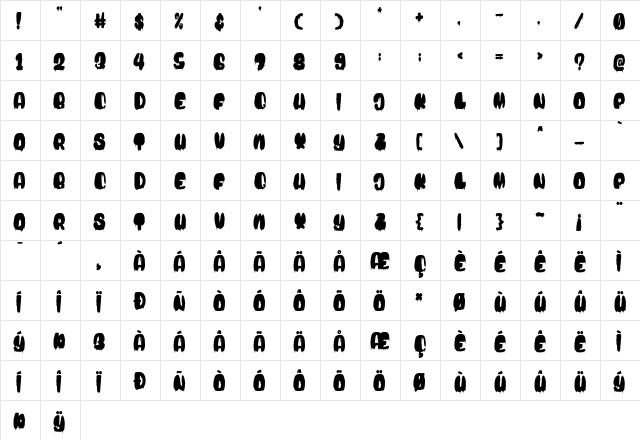
Blood Bold Driped Regular
Design Context for Blood Bold Driped Typeface
Blood Bold Driped carries an unsettling edge — its distorted letterforms are built to unsettle, perfectly suited to horror, Halloween, and dark creative work.
Ideal for Halloween projects, horror film titles, haunted house signage, and dark editorial design.
Font Pairing: Pair with a clean neutral sans-serif for body copy to let Blood Bold Driped's character lead without overwhelming the composition.
Pro Tip: Blood Bold Driped works best as a headline or focal element. Pair it against plain, neutral body text to amplify the contrast.